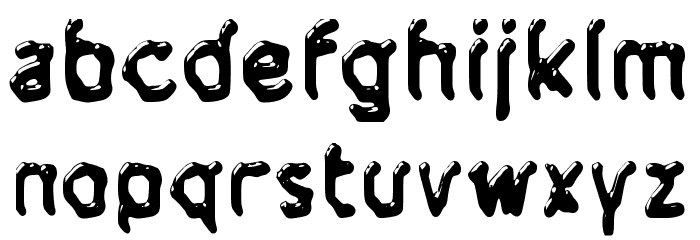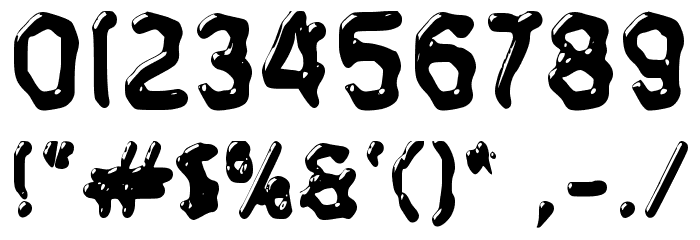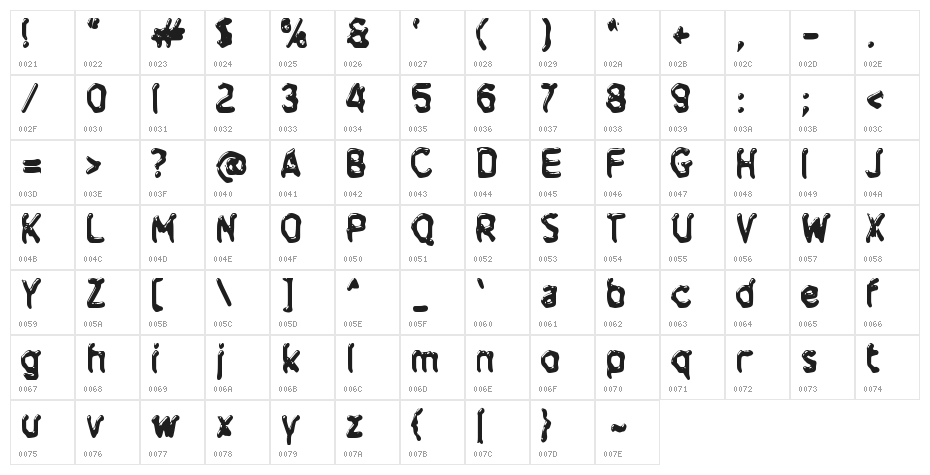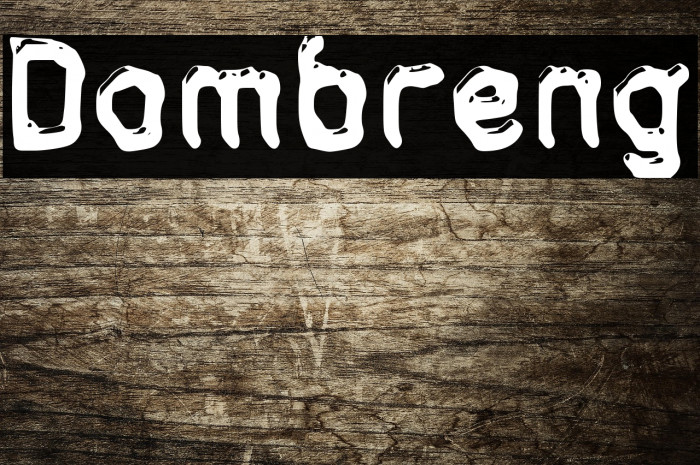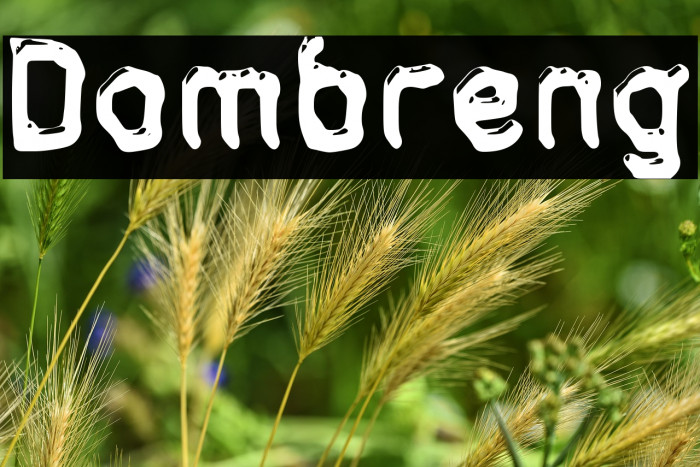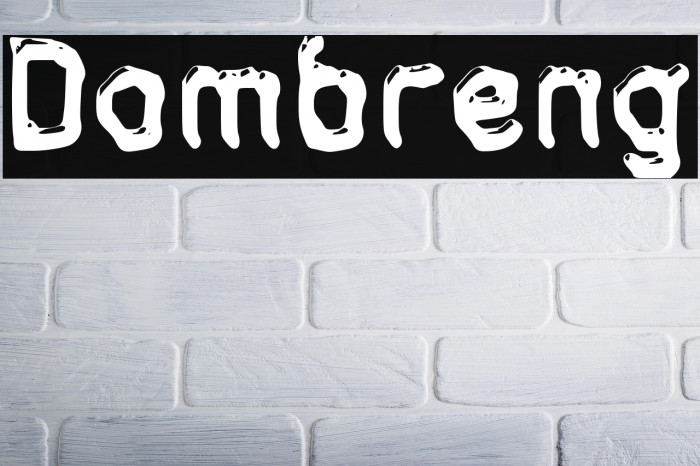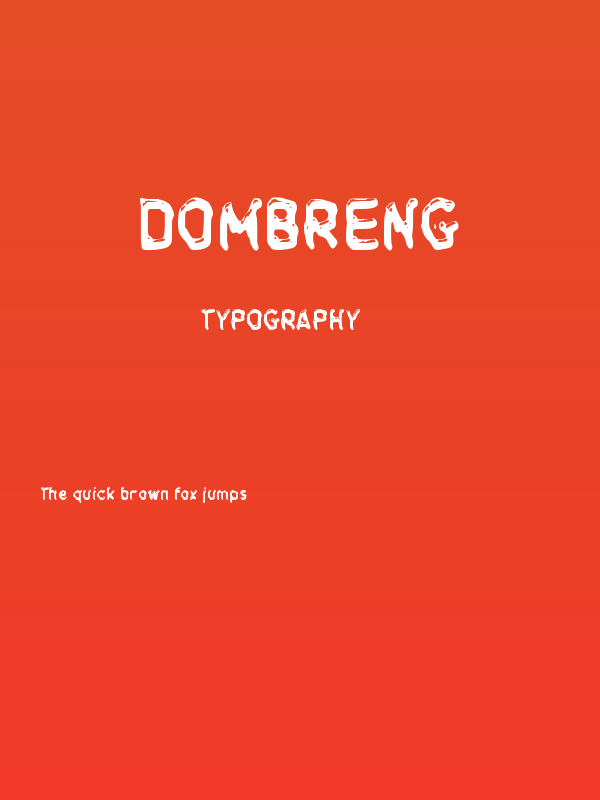
Dombreng Font
This font features a bold, dripping style that gives the impression of wet paint or ink. The characters are rounded and have a playful, artistic flair, making them stand out with their unique, liquid-like appearance. The uppercase and lowercase letters maintain a consistent style, with each character appearing as though it is melting or dripping. The numbers and special characters follow the same design, ensuring a cohesive look across all elements. This font is highly decorative and eye-catching, perfect for projects that require a bold statement.
A bold, dripping font with a playful, artistic style.
- Proposed Projects: Ideal for creative projects such as posters, album covers, or branding that seeks a unique and artistic touch.